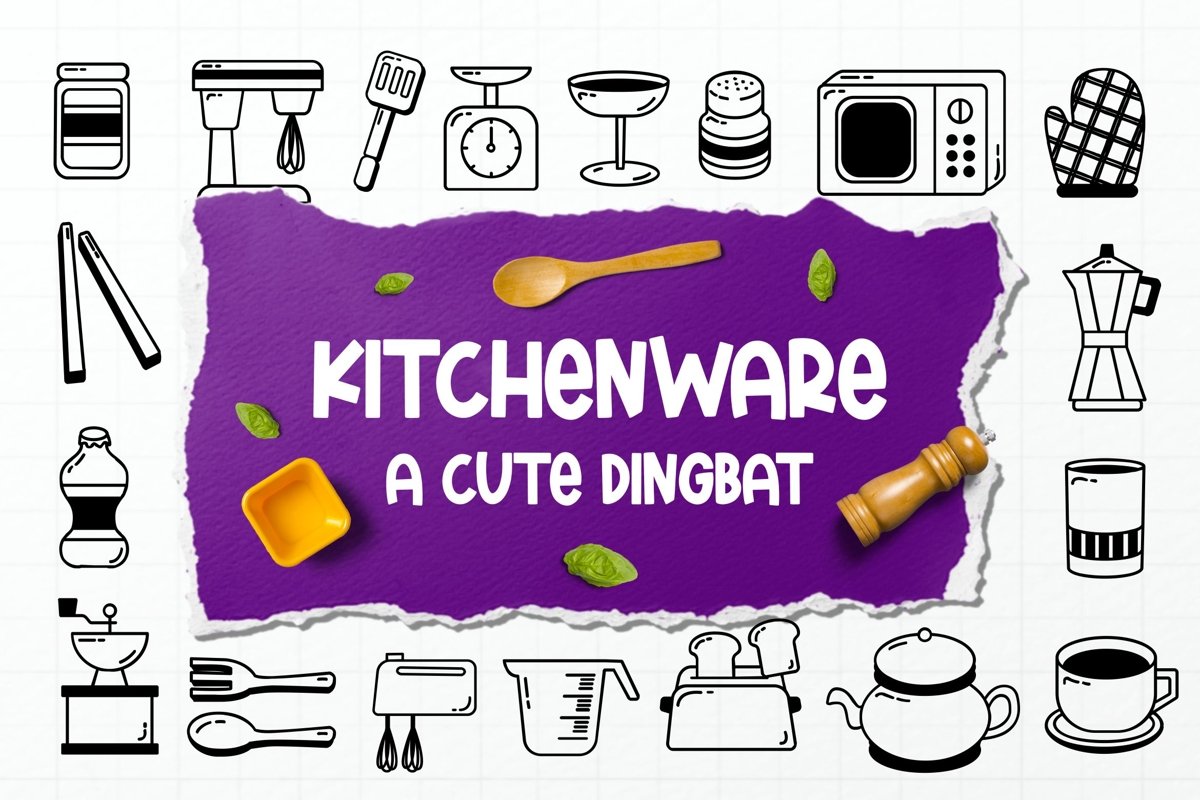
Kitchenware Dingbat for some designs such as the logotype, brand, packaging, quotes, music poster, t-shirt, cover book and more custom design. The features uppercase, lowercase, numeral, punctuation & symbol, multilingual support.